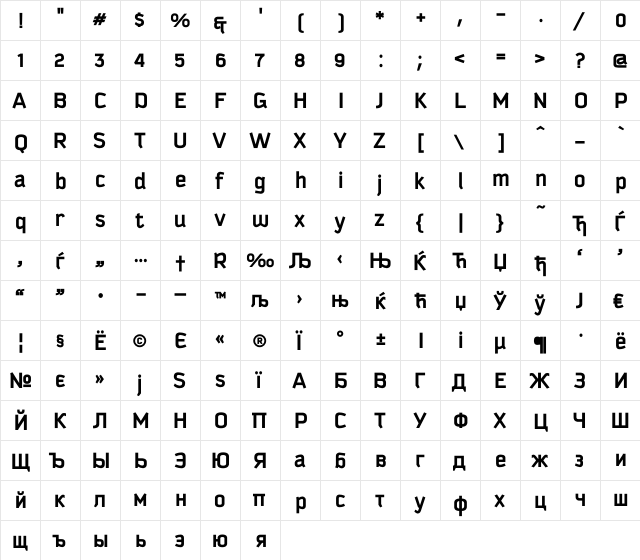
Kautiva Cyrillic Bold Regular
Design Context for Kautiva Cyrillic Bold Typeface
Kautiva Cyrillic Bold takes a measured approach to typography — its balanced proportions and neutral character make it a reliable workhorse for both digital and print work. The heavy weight commands attention and anchors typographic hierarchies.